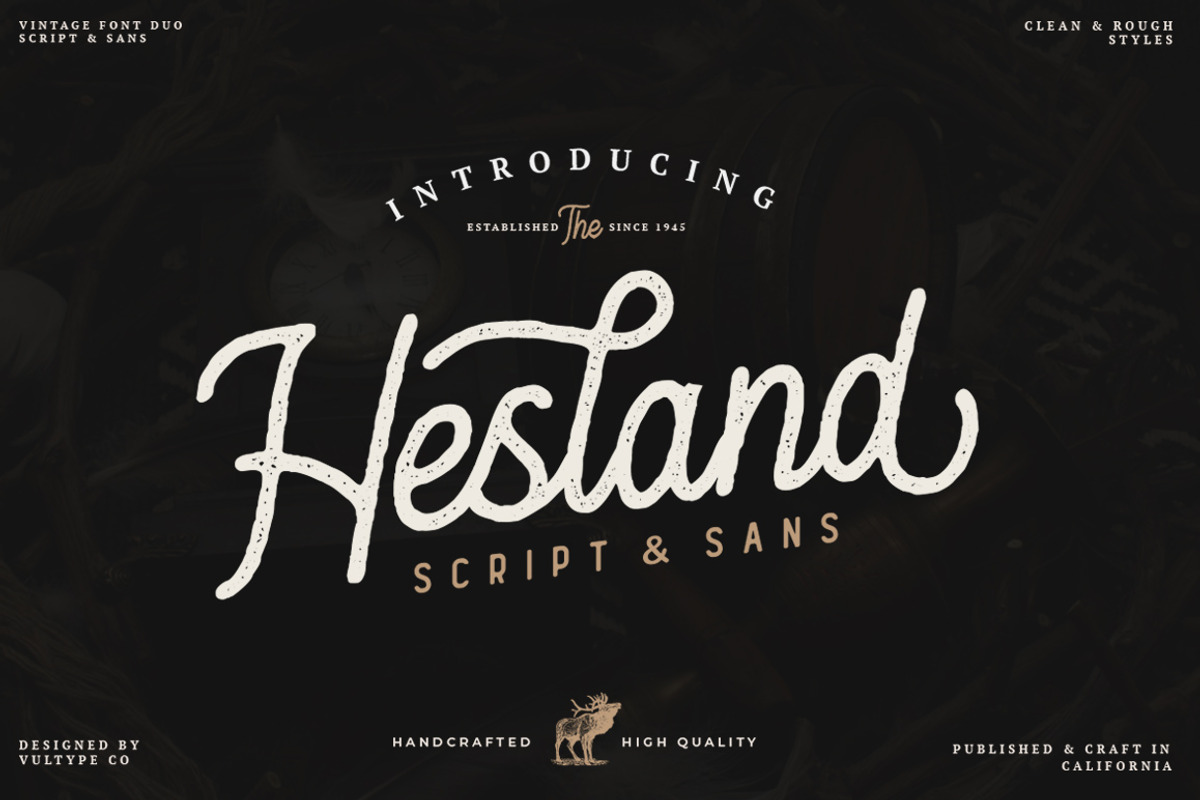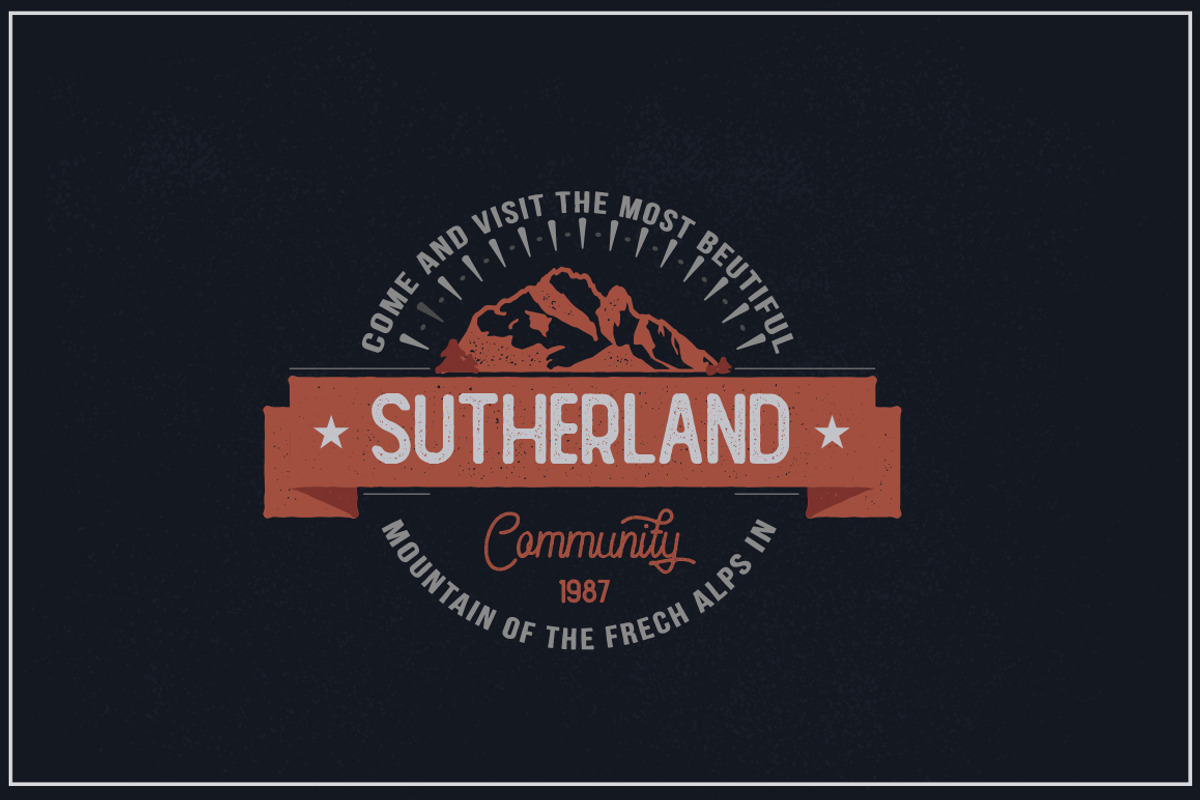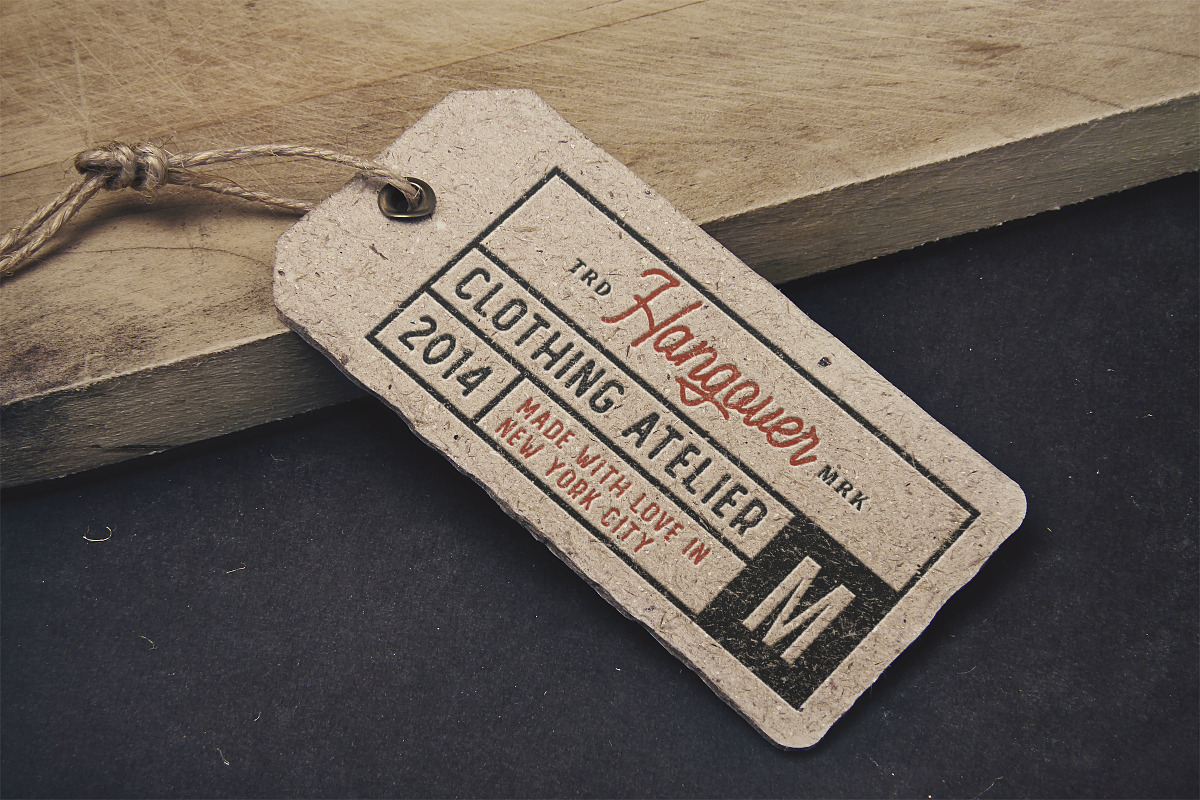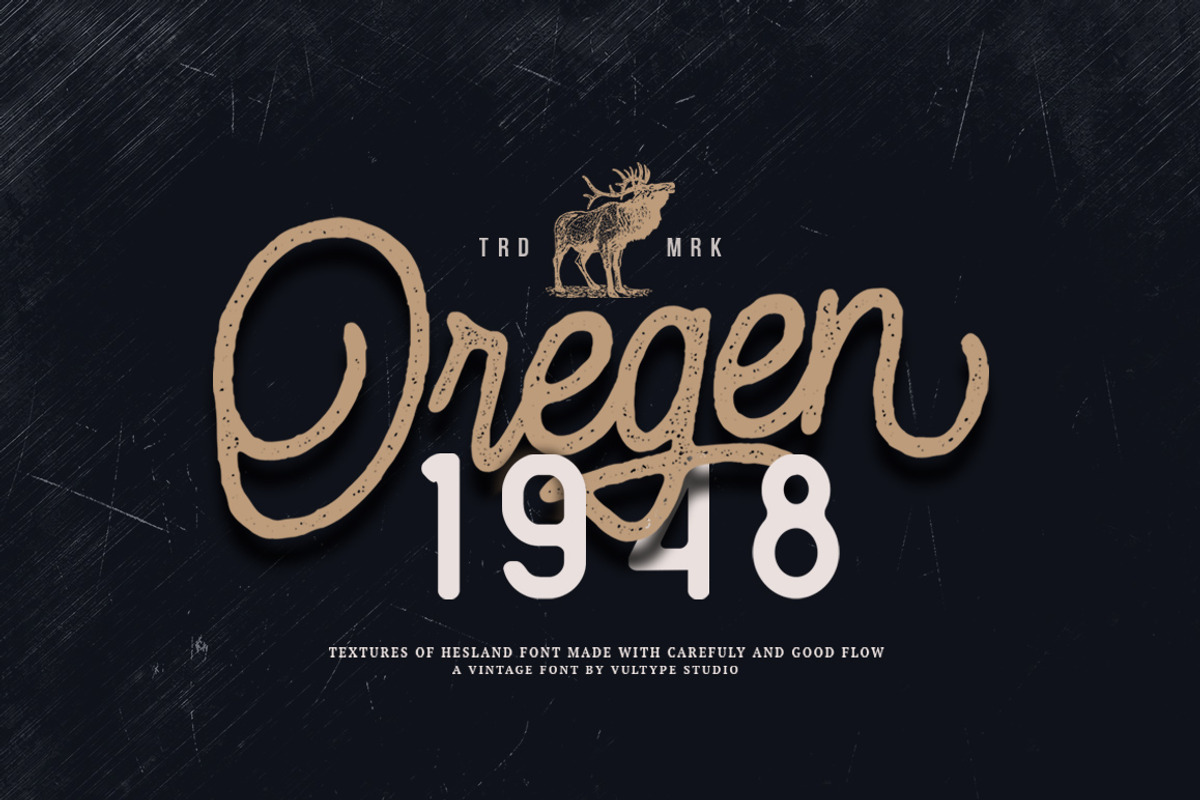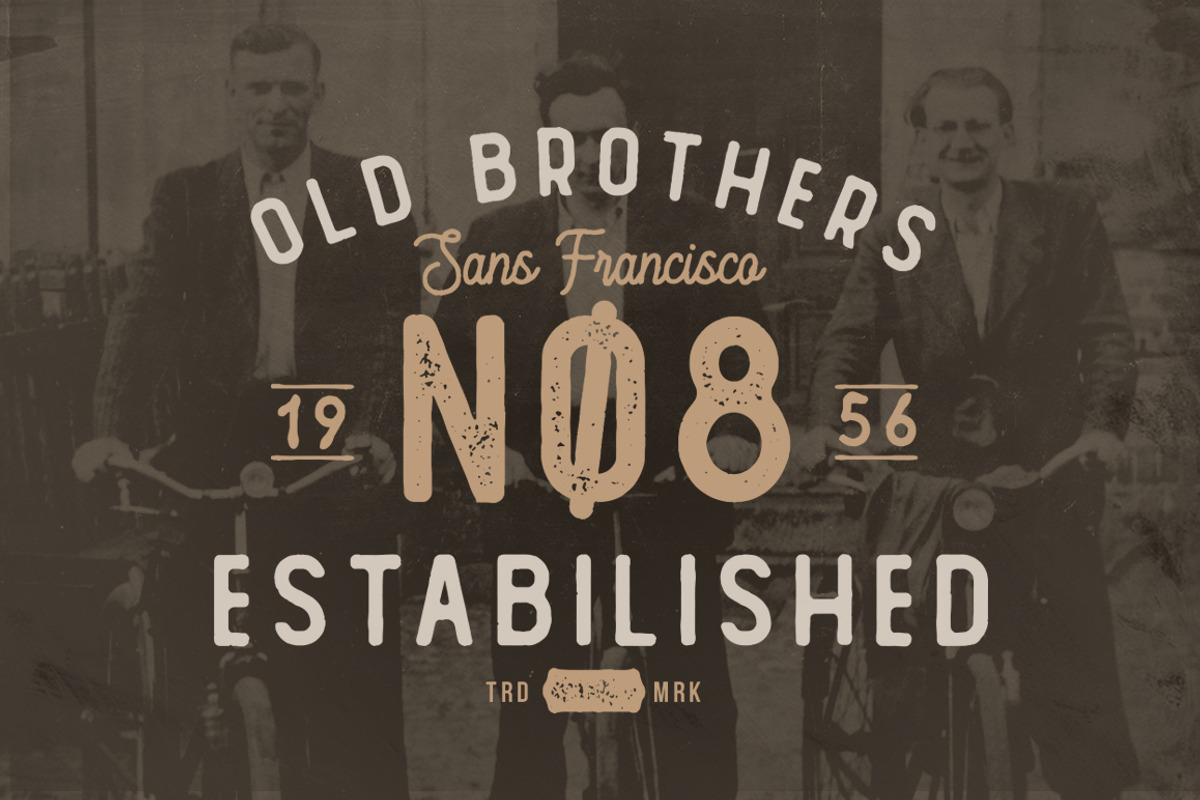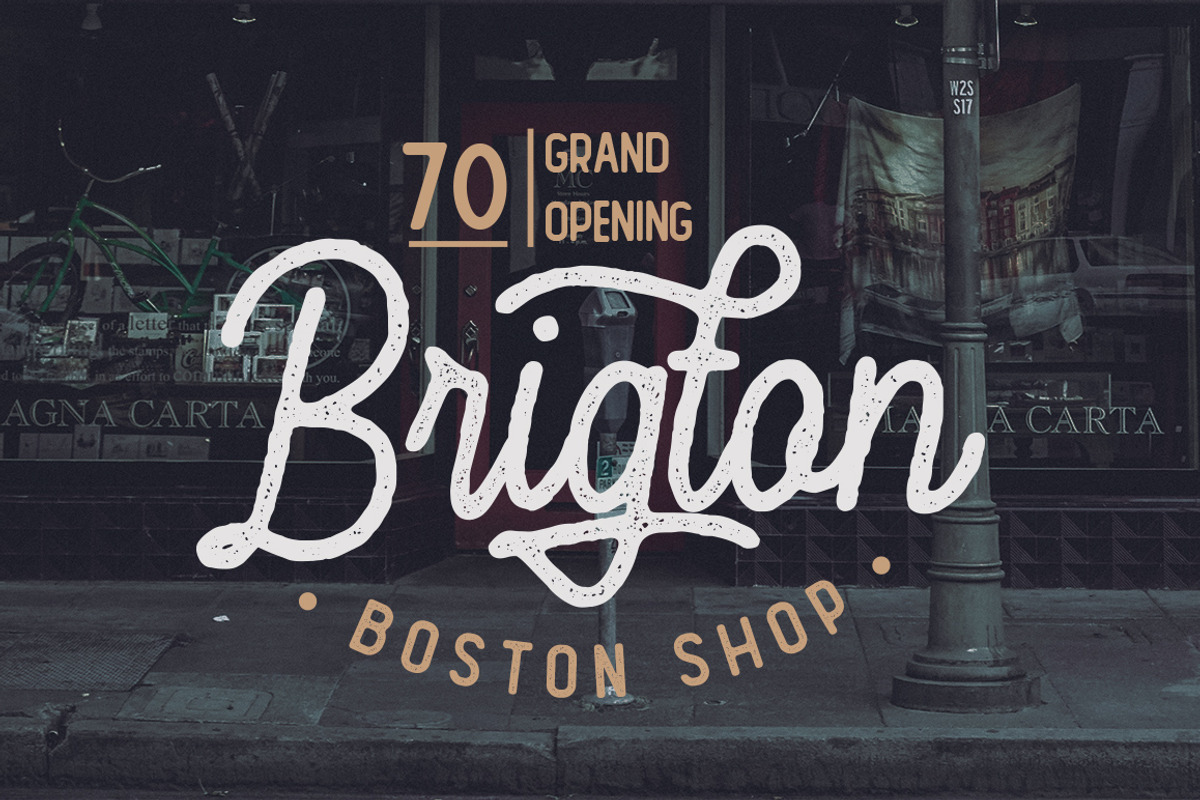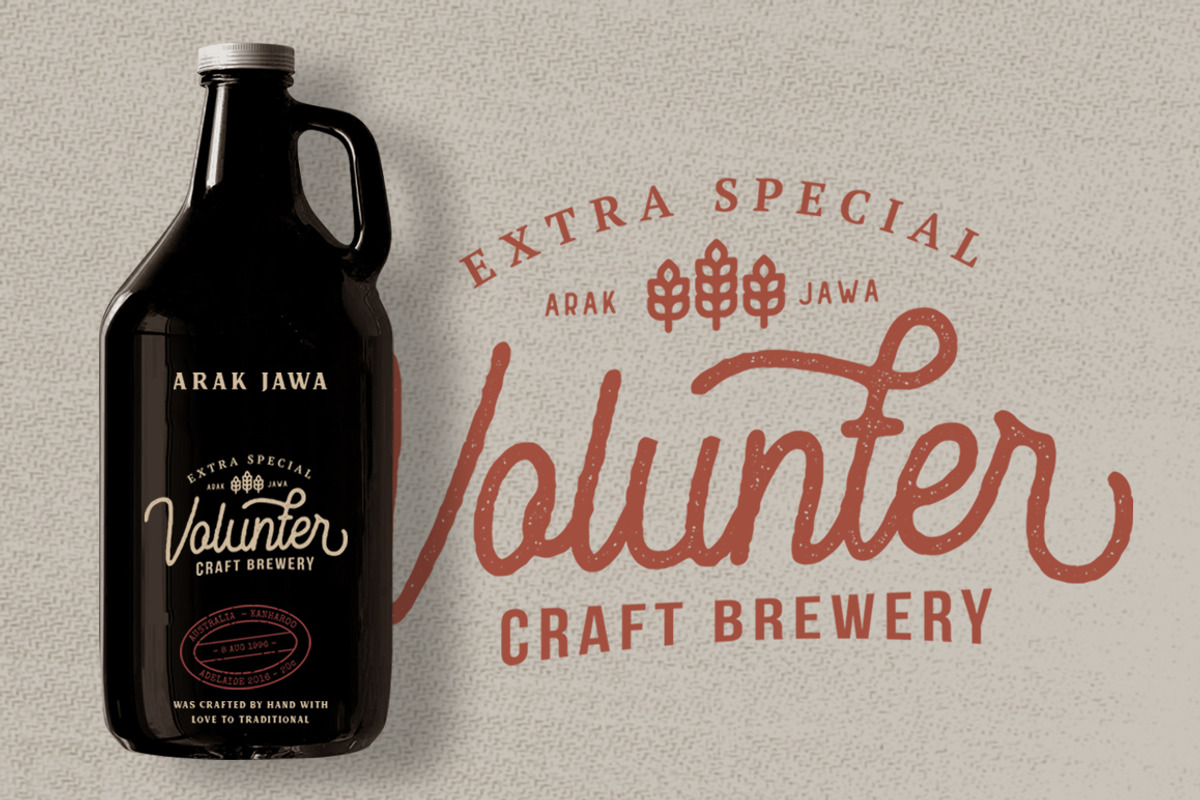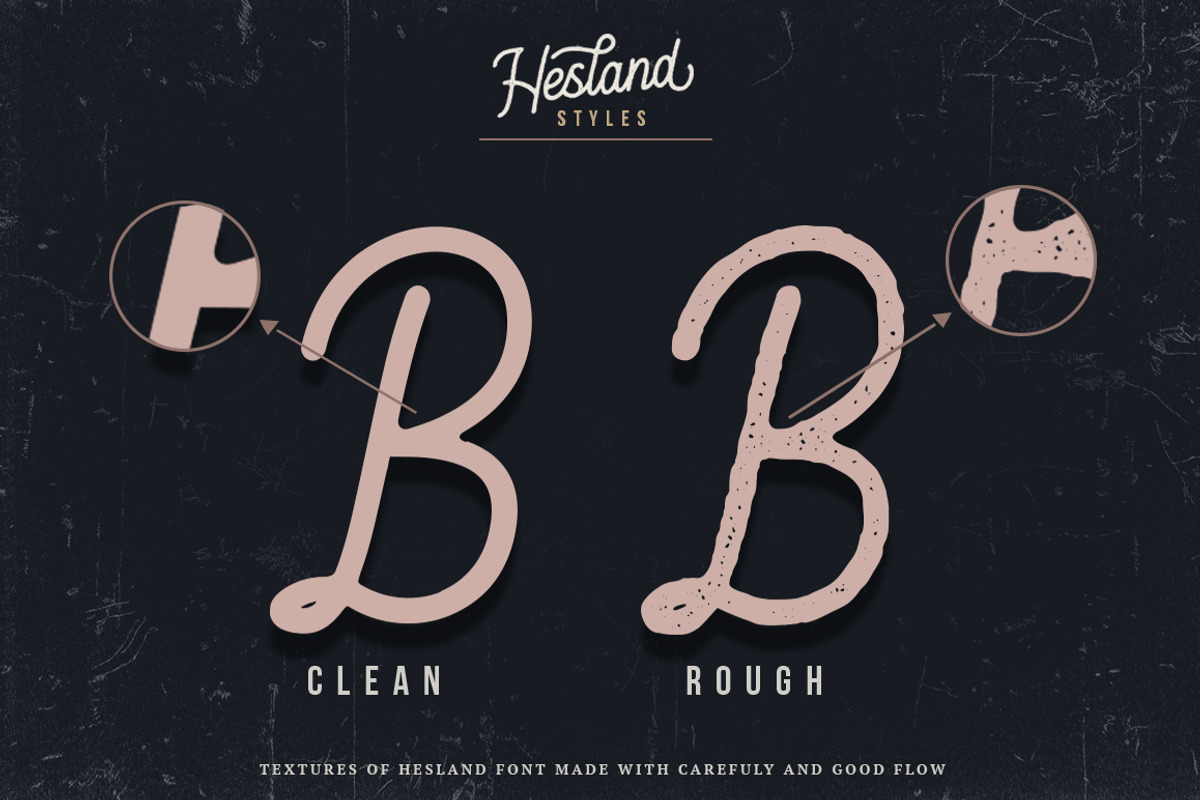
Hesland - Vintage Script Font
Hesland Vintage Font Duo inspired by the vintage old american which has two styles, Clean and Stamped. come with script and sans serif this font.
This font has a vintage feel with styles stamp on each letter. great for Logotype, Branding Design, Vintage Logo Design, Digital Lettering Arts, Retro, Vintage lettering, and any vintage design needs.
It also includes a clean version without texture. OpenType features (ligatures and alternates) helps to make your lettering more interesting. Also there is swashes alternate